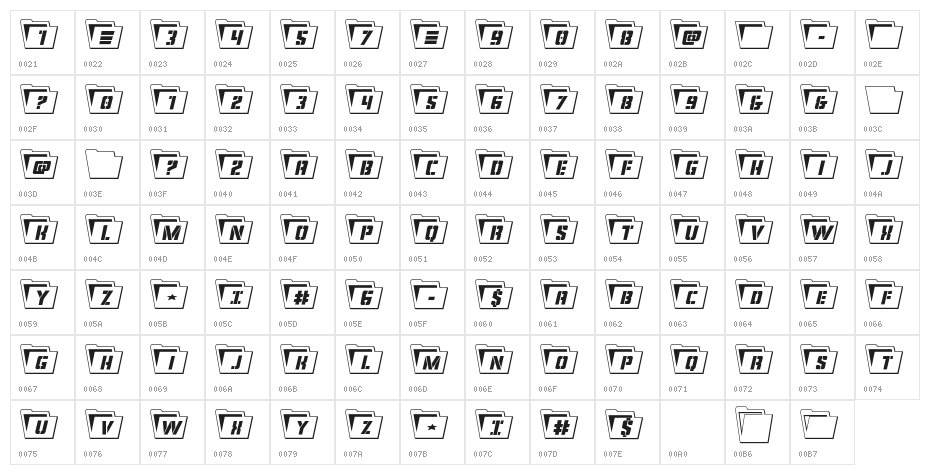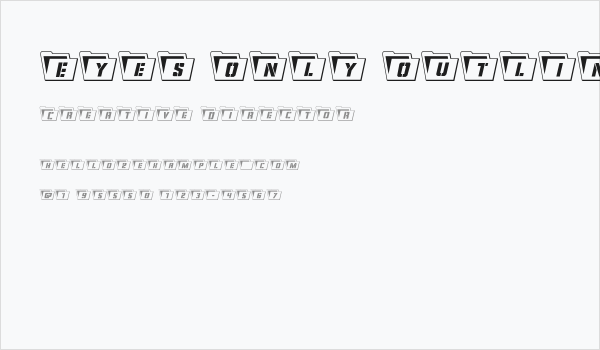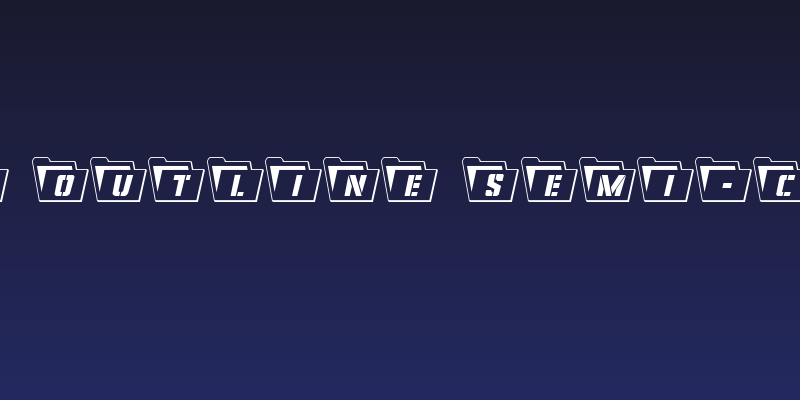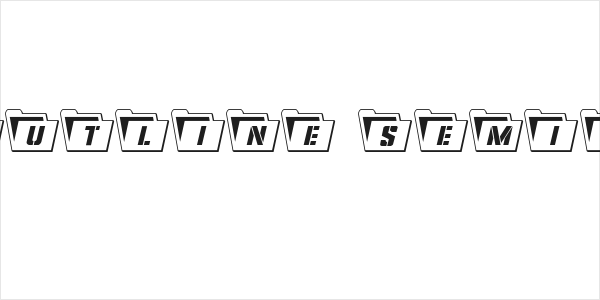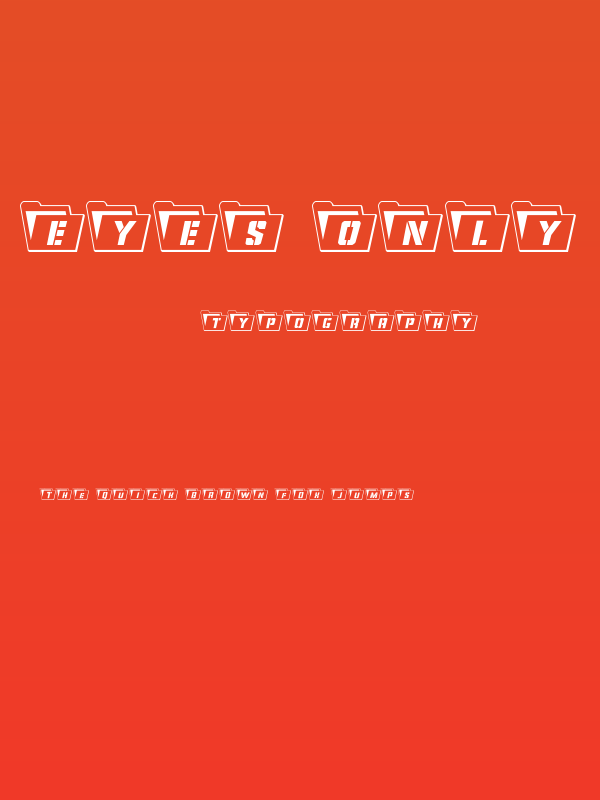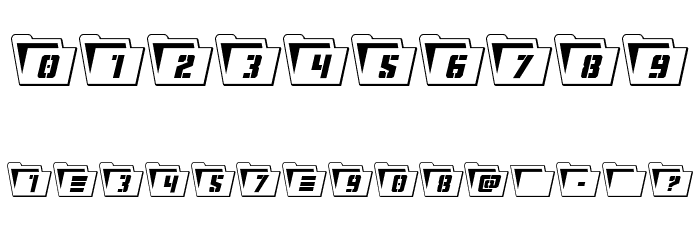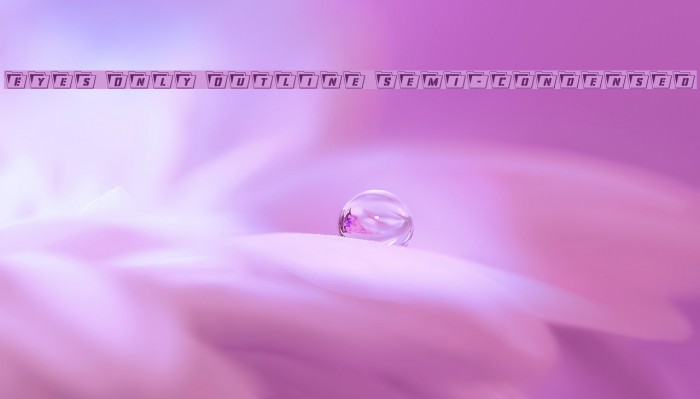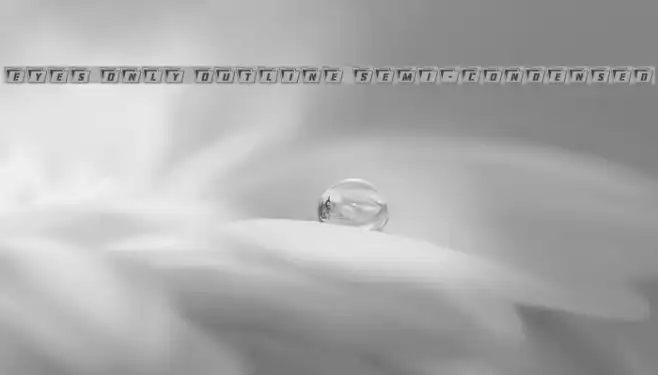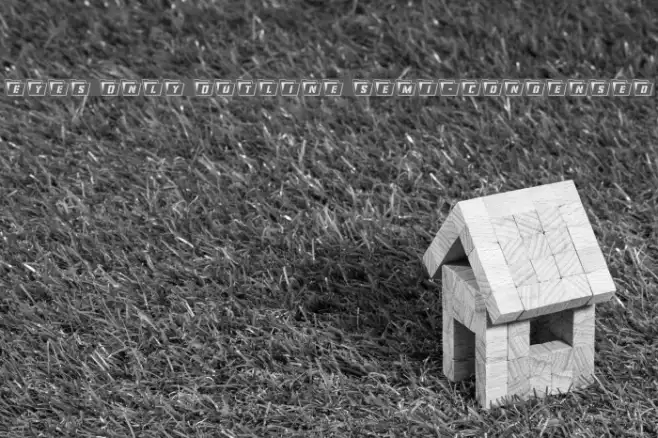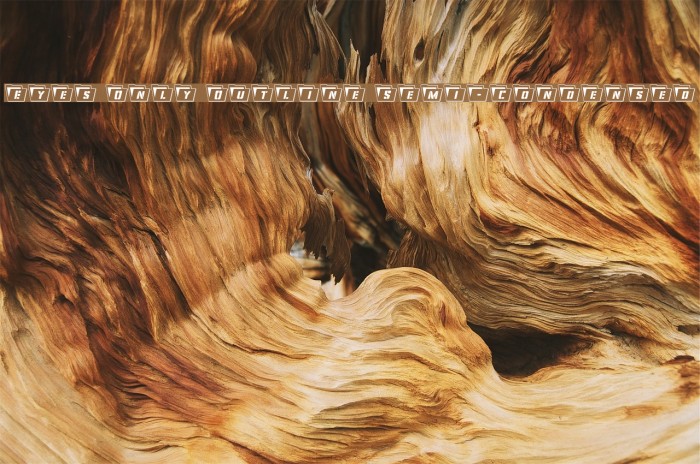
Eyes Only Outline Semi-Condensed Font
Eyes Only Outline Semi-Condensed Description
This font features a unique design where each character is enclosed within a folder-like outline, giving it a distinct and modern appearance. The characters themselves are bold and slightly condensed, with a semi-condensed width that maintains readability while offering a compact look. The style is playful yet structured, making it suitable for creative projects. The contrast between the thick strokes of the letters and the thin outlines of the folders adds visual interest. This font is particularly eye-catching and can be used to draw attention to specific text elements.
| Proposed Projects | Ideal for tech-related branding, educational materials, or creative digital projects. |